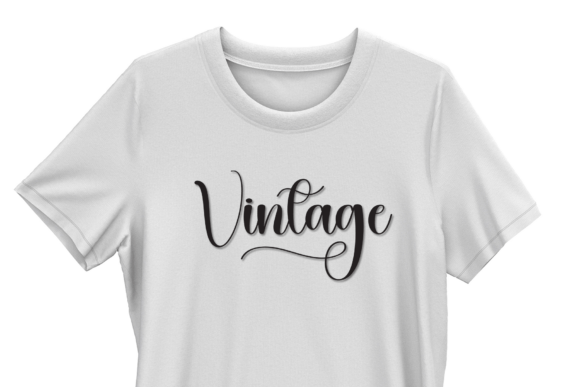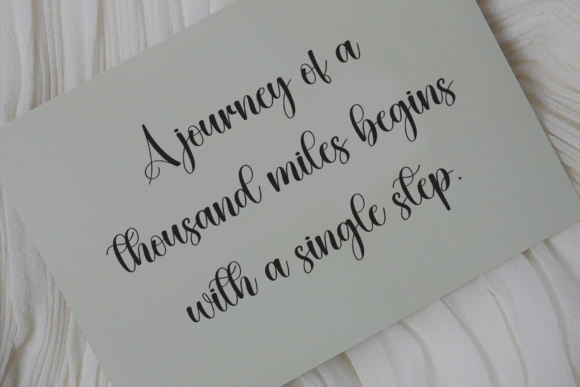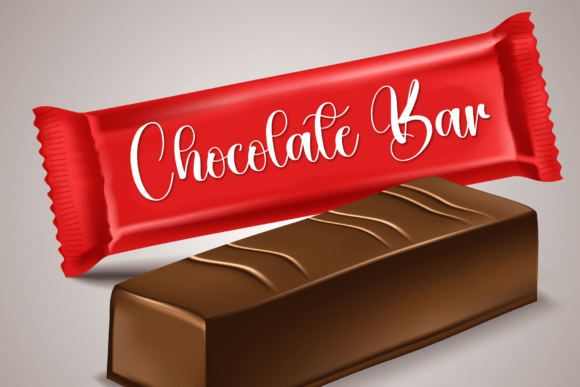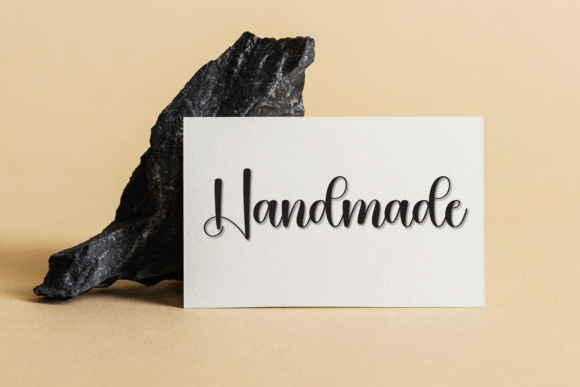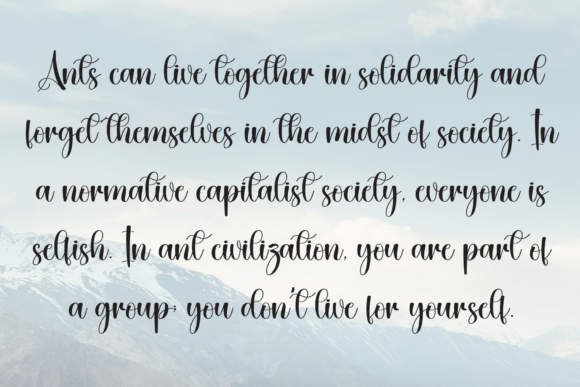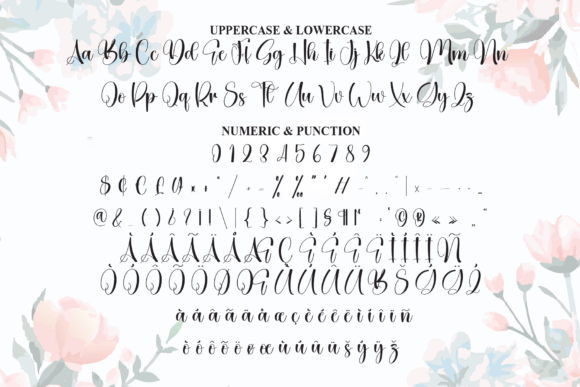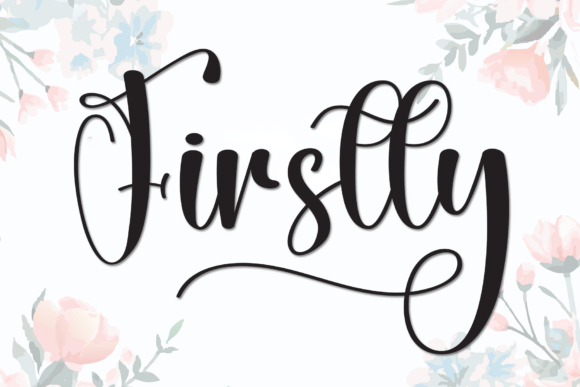
Introducing Firstly Font: Elevate Your Designs with Stylish Script Elegance
In the world of typography, few fonts manage to capture the essence of modern elegance and creativity as effectively as the Firstly Font. This stunning script font is designed to bring a touch of sophistication and artistic flair to any design project, making it a must-have for designers and crafters alike. With its flowing strokes, graceful curves, and expressive letterforms, Firstly Font beautifully blends the charm of hand-drawn calligraphy with a contemporary twist.
The Beauty of Hand-Drawn Calligraphy Meets Modern Elegance
Firstly Font is not just a typeface; it’s an experience. It encapsulates the natural rhythm and fluidity of handwritten calligraphy, yet presents it with a level of refinement and precision that is distinctly modern. Each letterform is meticulously crafted to ensure that the font exudes a sense of elegance and poise, perfect for projects that demand a high level of sophistication.
One of the standout features of Firstly Font is its incredible versatility. Whether you’re working on a logo, invitation, packaging, or social media graphics, this font seamlessly adapts to fit your design needs. Its unique blend of traditional calligraphy and modern design elements makes it suitable for a wide range of projects, from wedding invitations and luxury brand logos to trendy fashion packaging and engaging social media content.
Key Features of Firstly Font
- Flowing Strokes and Graceful Curves: The font’s design is characterized by smooth, flowing strokes and elegant curves, giving it a dynamic and expressive feel.
- Expressive Letterforms: Each letter is designed to convey a sense of movement and emotion, making your text stand out with personality and charm.
- Contemporary Flair: While rooted in traditional calligraphy, Firstly Font is updated with a modern edge, making it perfect for designs that require a current and stylish look.
- High Versatility: Its adaptability makes it an excellent choice for various design applications, ensuring that your projects always look cohesive and professionally crafted.
Applications of Firstly Font
The applications of Firstly Font are as varied as they are exciting. Here are a few ideas to get you started:
- Logos and Branding: Use Firstly Font to create a memorable logo that speaks to your brand’s elegance and sophistication.
- Invitations and Announcements: Add a touch of luxury to your wedding invitations, event announcements, or formal notifications.
- Packaging Design: Elevate your product packaging with a stylish and distinctive font that captures the essence of your brand.
- Social Media Graphics: Stand out on social media with eye-catching graphics and typography that reflect your unique style.
Why Choose Firstly Font?
In a sea of typefaces, Firstly Font stands out for its unique combination of traditional charm and modern sophistication. Its ability to add an artistic and refined touch to any design makes it a valuable asset for designers looking to push their creative boundaries. Moreover, the font’s legibility and clarity ensure that your message is conveyed with elegance and impact.
Firstly Font is more than just a typeface; it’s a design statement. With its stylish script, modern elegance, and versatile application, it offers designers and crafters a powerful tool to enhance their projects. Whether you’re aiming to create a stunning logo, a beautiful invitation, or engaging social media content, Firstly Font is your gateway to designs that are not only visually captivating but also imbued with a sense of sophistication and creativity. Embrace the elegance and versatility of Firstly Font, and watch your designs transform into memorable works of art.